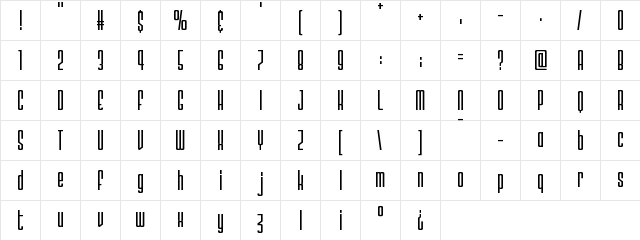
Megalomaniac Headliners Regular
Design Context for Megalomaniac Headliners Typeface
Megalomaniac Headliners offers clean, dependable letterforms without strong stylistic allegiance, making it a practical choice for designers who need flexibility.